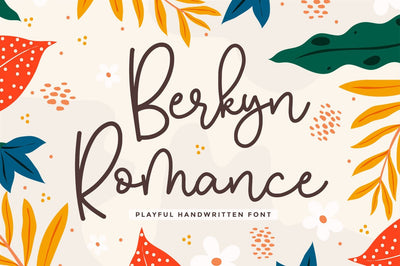
Berkyn Romance - Monoline Script Font
Berkyn Romance is a sweet and stunning script font. It features a modern style and will add a unique feel to your upcoming projects.
Get inspired by its authentic feel and use it to create gorgeous wedding invitations, beautiful stationary art, eye-catching social media posts, and cute greeting cards.